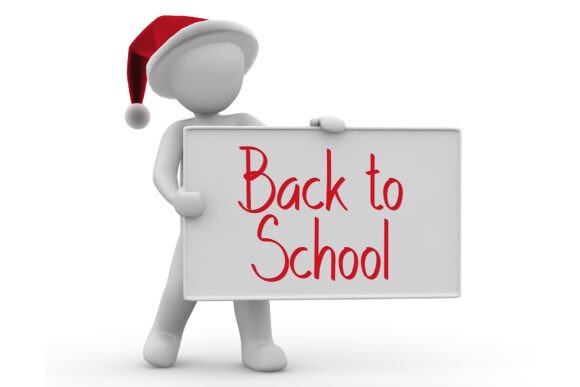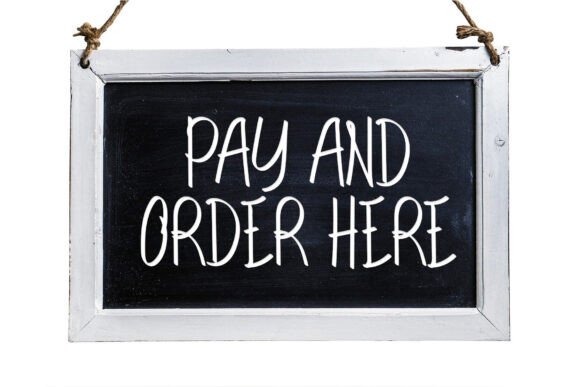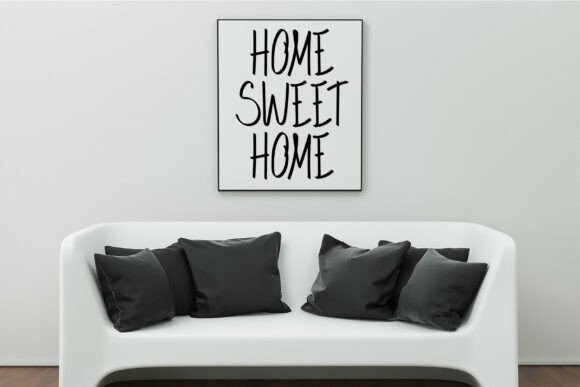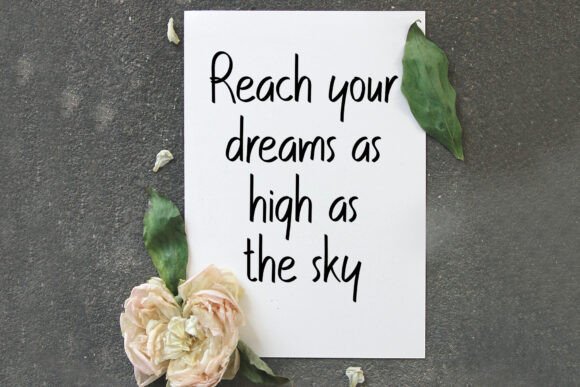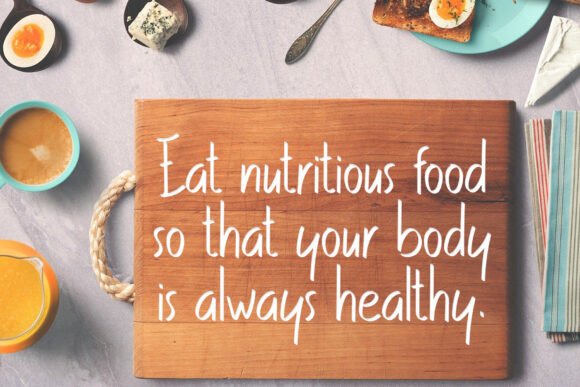
Introducing Delphine Font: A Timeless Handwritten Beauty
Are you a designer or crafter looking for a font that can add a touch of elegance and sophistication to your designs? Look no further than Delphine Font, a lovely and timeless handwritten font that is perfect for creating eye-catching logos, branding, and quotes.
What Makes Delphine Font Special?
Delphine Font is a unique and beautiful font that stands out from the crowd. Every letter has a distinctive touch that will make your design come alive. The font is carefully crafted to provide a personal and human feel to your designs, making it perfect for projects that require a touch of warmth and personality.
Delphine Font is an excellent choice for creating logos and branding materials. The font’s elegant and sophisticated look makes it perfect for businesses that want to establish a strong and professional brand identity. Whether you’re creating a logo, business card, or website, Delphine Font is sure to make a lasting impression.
Unique and Beautiful Lettering
One of the standout features of Delphine Font is its unique and beautiful lettering. Each letter is carefully crafted to provide a distinctive look that will add a touch of elegance to your designs. The font’s lettering is perfect for creating eye-catching quotes, social media posts, and other designs that require a touch of sophistication.
Why Choose Delphine Font?
So why choose Delphine Font over other fonts? Here are just a few reasons why Delphine Font stands out:
- Unique and beautiful lettering: Each letter has a distinctive touch that will make your design come alive.
- Timeless look: Delphine Font has a timeless look that will never go out of style.
- Perfect for logos and branding: The font’s elegant and sophisticated look makes it perfect for businesses that want to establish a strong and professional brand identity.
- Easy to read: Despite its elegant look, Delphine Font is easy to read, making it perfect for body text and other applications where readability is important.
How to Use Delphine Font
Delphine Font is easy to use and can be applied to a variety of design projects. Here are a few ways you can use Delphine Font:
- Logos and branding: Use Delphine Font to create eye-catching logos and branding materials that will establish a strong and professional brand identity.
- Quotes and social media posts: Use Delphine Font to create eye-catching quotes and social media posts that will grab attention and add a touch of elegance to your online presence.
- Invitations and stationery: Use Delphine Font to create beautiful invitations and stationery that will add a touch of sophistication to your correspondence.
Tips for Pairing Delphine Font with Other Fonts
Delphine Font can be paired with a variety of other fonts to create a unique and visually appealing design. Here are a few tips for pairing Delphine Font with other fonts:
- Pair with a sans-serif font: Pairing Delphine Font with a sans-serif font, such as Arial or Helvetica, can create a nice contrast and add visual interest to your design.
- Pair with a script font: Pairing Delphine Font with another script font, such as Pacifico or Great Vibes, can create a beautiful and elegant look.
- Experiment with different font sizes: Experimenting with different font sizes can help you create a visually appealing hierarchy of information and add depth to your design.
Delphine Font is a lovely and timeless handwritten font that is perfect for designers and crafters looking to add a touch of elegance and sophistication to their designs. With its unique and beautiful lettering, Delphine Font is perfect for creating eye-catching logos, branding, and quotes. Whether you’re a seasoned designer or just starting out, Delphine Font is a great addition to your font library.